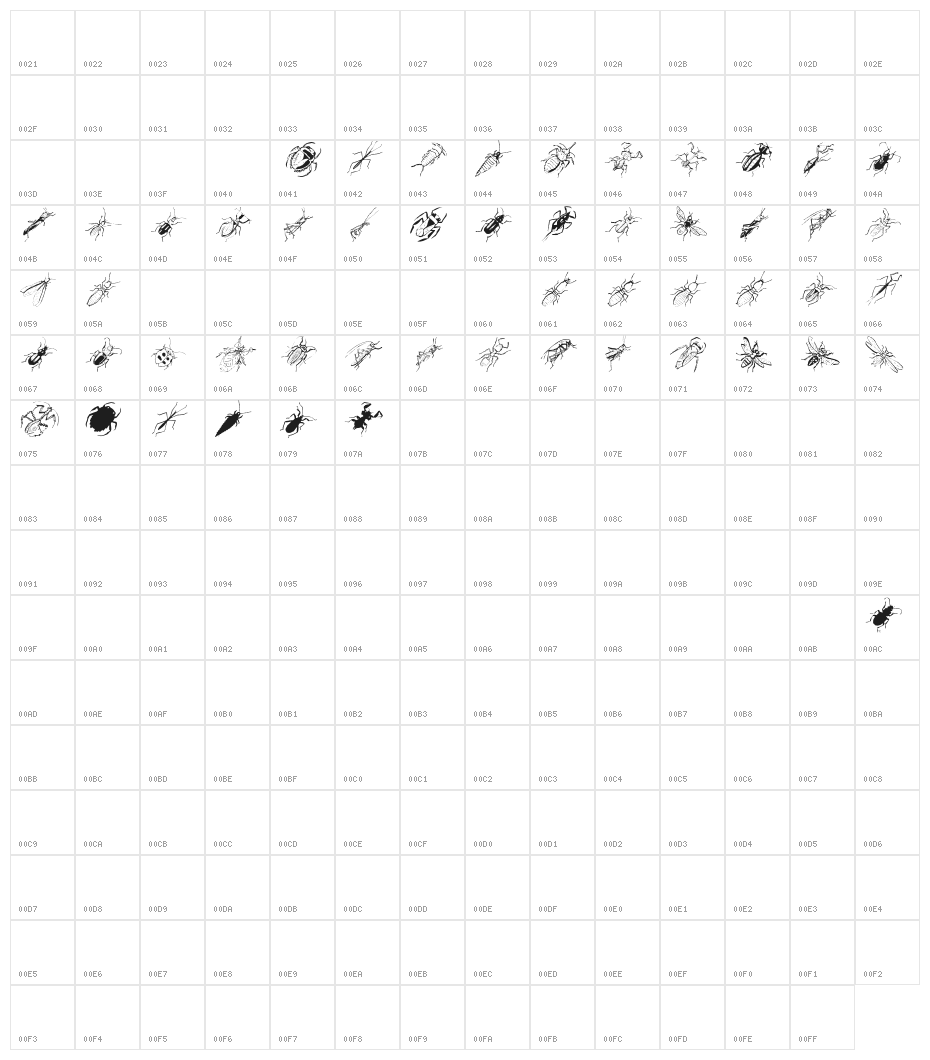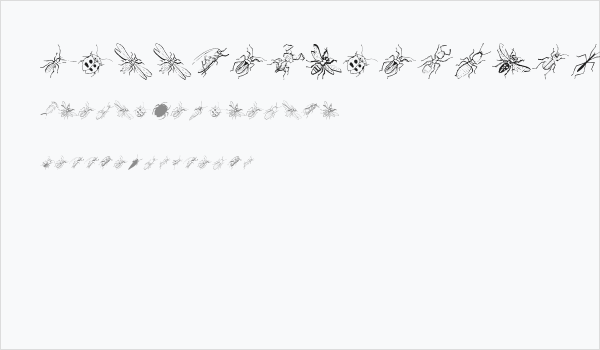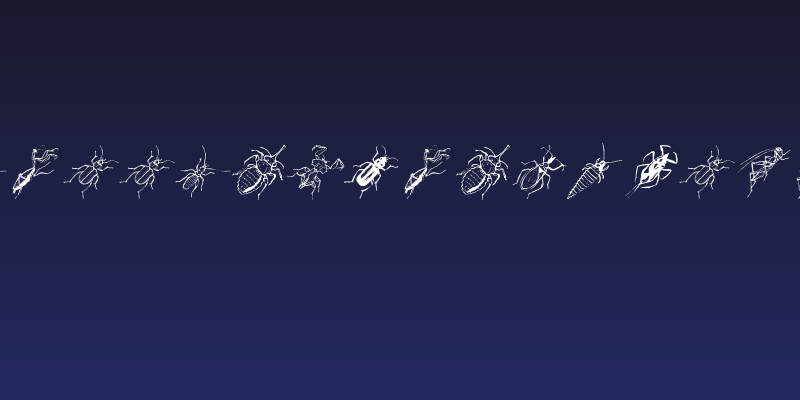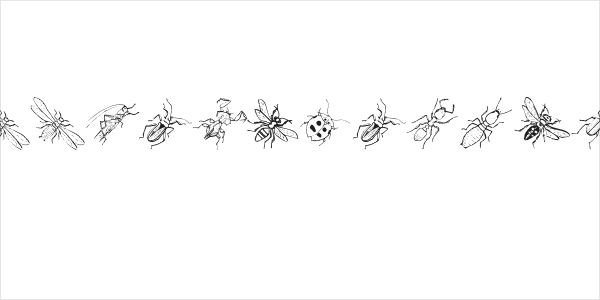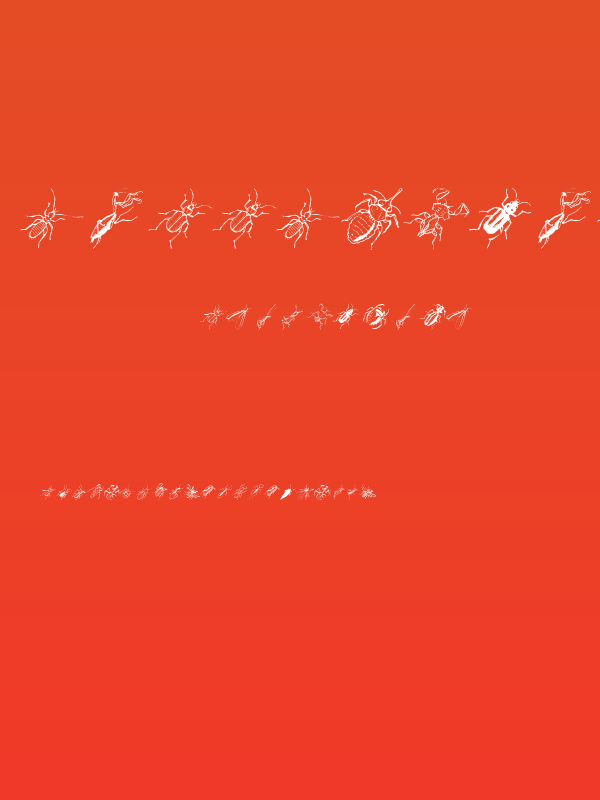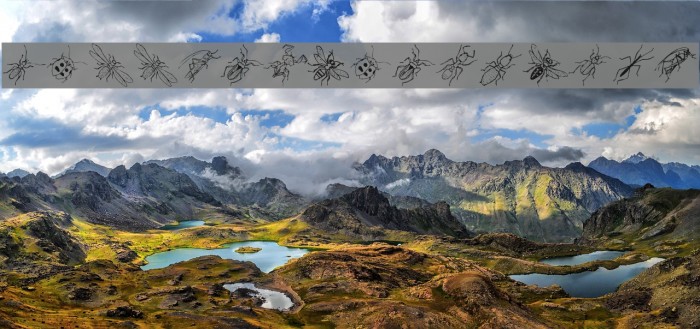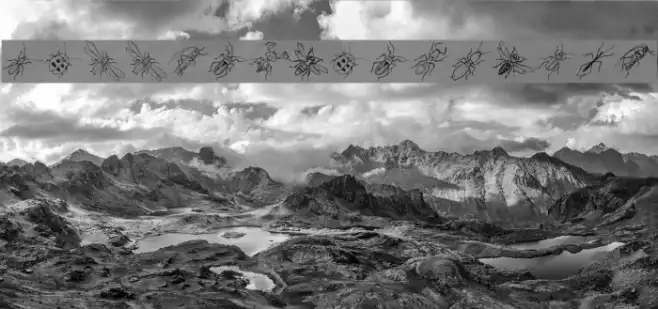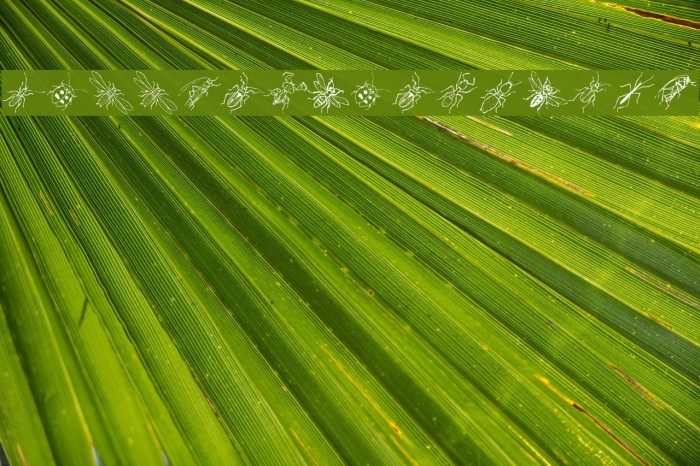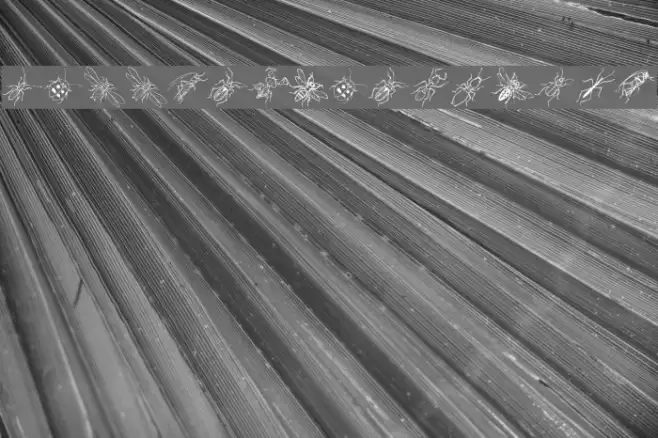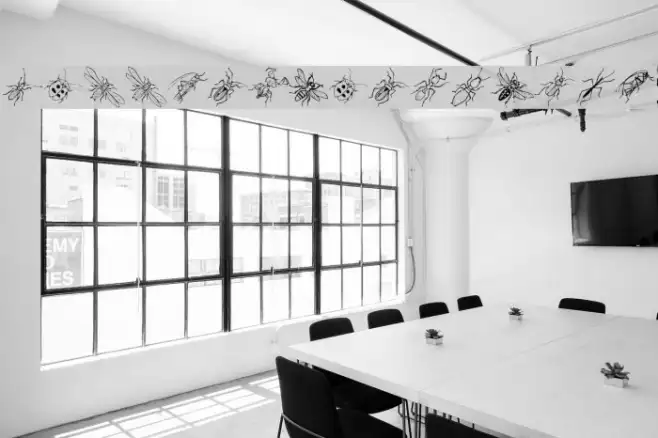
LittleFriendsTwo Font
LittleFriendsTwo Description
This is not a traditional font but rather a collection of intricate insect illustrations. Each character is represented by a detailed drawing of a different insect, showcasing a variety of species with unique shapes and textures. The designs are highly detailed, capturing the essence of each insect with precision. The illustrations vary in complexity, with some featuring bold outlines and others more delicate line work. This collection is ideal for projects that require a natural or entomological theme, offering a creative and artistic approach to design.
| Overall Style | Artistic, Natural, Detailed |
| Use Case | Decorative elements, Educational materials, Artistic projects |
| Proposed Projects | Ideal for educational materials, nature-themed designs, creative art projects, or any work requiring a unique and artistic representation of insects. |